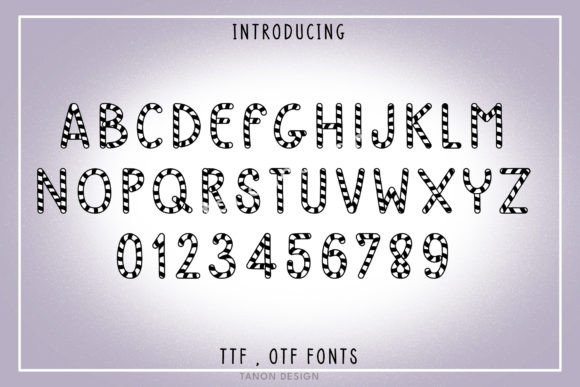
Candy Cane Font
Candy Cane is a fun and festive display font. It will look fantastic on all your Christmas-themed designs including t-shirt designs, mug designs, digital designs, crafts, cards, and any projects!